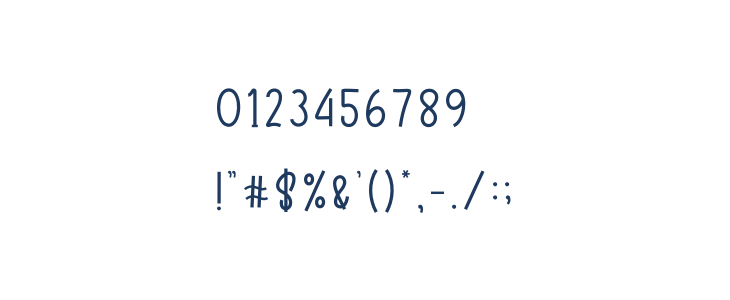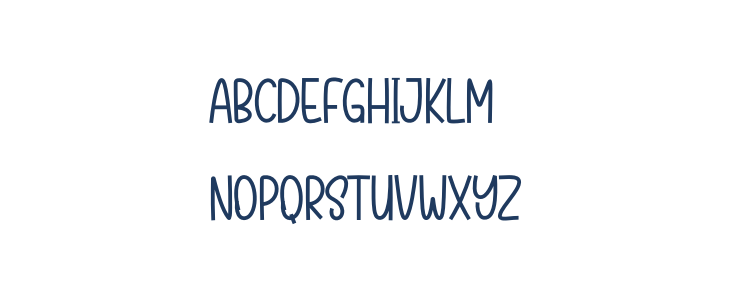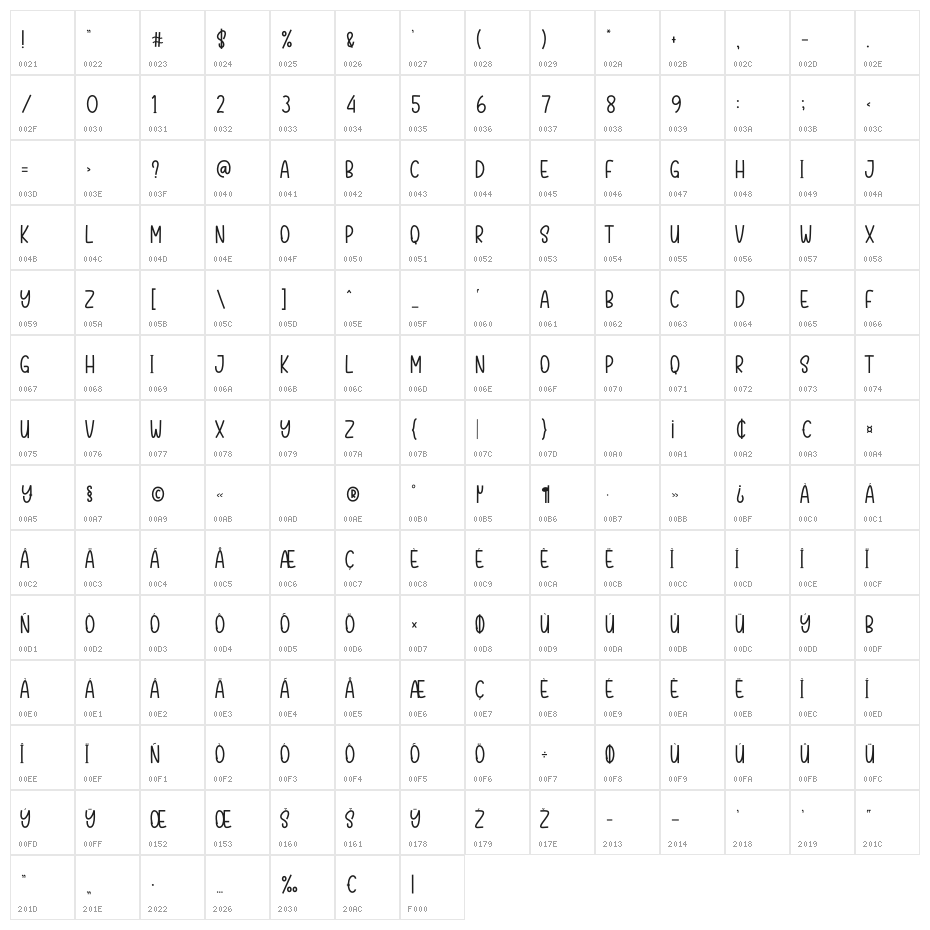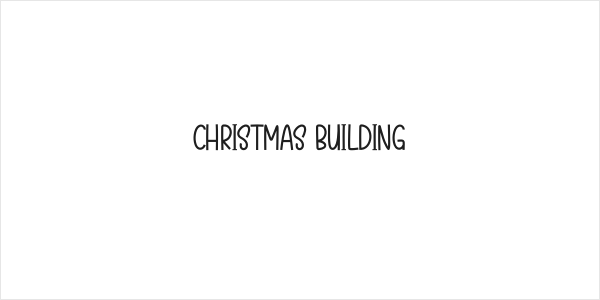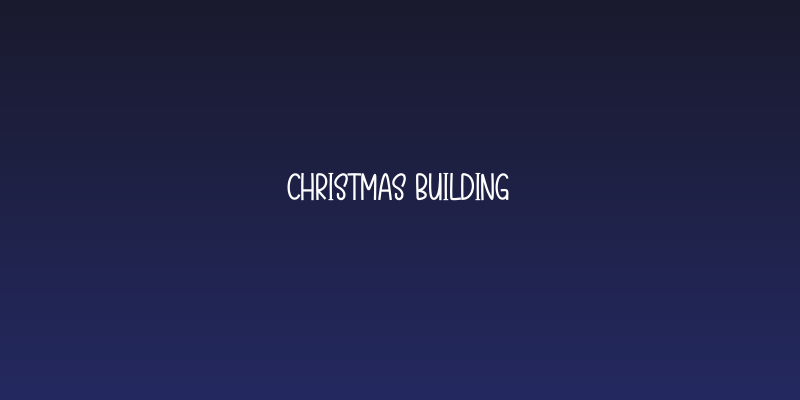
Christmas Building Font
Christmas Building Description
A playful, rounded sans-serif font with uniform stroke width and slightly quirky, hand-drawn letterforms. The characters are tall with consistent height, and the overall appearance is casual and friendly.
| Overall Style | Decorative, Playful, Handwritten |
| Use Case | Headlines, Posters, Greeting cards, Informal branding |
| Proposed Projects | Children's books, holiday cards, posters, party invitations, playful branding. |